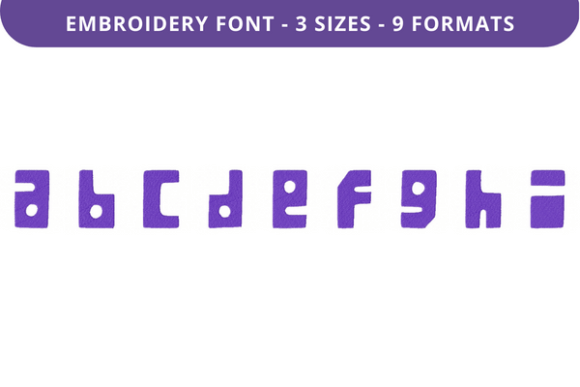
Ghuzag Chest Font Lowercase a to I
When it comes to personalizing fabric with unique typography, the Ghuzag Chest Font Lowercase a to I stands out as a versatile and elegant choice. This embroidery font is designed for those who want to add a touch of character and charm to their projects. Whether you're creating custom gifts, branding materials, or decorative items, this font offers a distinctive style that can elevate your work.
A Unique Embroidery Font for Creative Expression
The Ghuzag Chest Font Lowercase a to I is more than just a set of letters—it's a creative tool that allows designers to bring their ideas to life with precision and flair. Each letter is crafted with attention to detail, making it ideal for use in both small and large-scale embroidery projects. Its design features a rustic, handcrafted feel that adds warmth and personality to any fabric.
What makes this font particularly appealing is its adaptability. It works well across a variety of surfaces, from cotton and linen to denim and felt. The font’s structure ensures that each letter maintains clarity and legibility, even when scaled down or used in intricate patterns.
Creative Possibilities with Ghuzag Chest Font Lowercase a to I
With the Ghuzag Chest Font Lowercase a to I, the possibilities are endless. Here are a few ways you can incorporate it into your designs:
How to Use Ghuzag Chest Font Lowercase a to I Effectively
To get the most out of the Ghuzag Chest Font Lowercase a to I, consider the following tips:
1. Choose the Right Fabric: Opt for fabrics that allow for clear stitching and maintain the integrity of the design. Cotton and linen are excellent choices for most embroidery projects.
3. Experiment with Color: While the font is typically used in monochrome, experimenting with thread colors can enhance the visual impact of your designs. Try pairing bold threads with neutral backgrounds for striking contrast.
4. Plan Your Layout: Before starting your embroidery, sketch out your design to ensure proper spacing and alignment. This helps avoid issues like overlapping stitches or misalignment.
5. Test Before Finalizing: Always test the font on a small piece of fabric before applying it to your final project. This allows you to see how the design looks in real-life conditions.
Adapting the Font for Different Audiences and Goals
The Ghuzag Chest Font Lowercase a to I is not limited to one specific audience or purpose. Its versatility makes it suitable for a wide range of users, including:
Whether you're working on a personal project or a professional endeavor, this font provides a reliable and stylish solution that aligns with your goals.
Practical Inspiration and Recommendations
If you're unsure where to start, here are some practical ideas to inspire your creativity:
These examples show how the Ghuzag Chest Font Lowercase a to I can be adapted to suit various needs and preferences, making it a valuable addition to any designer's toolkit.